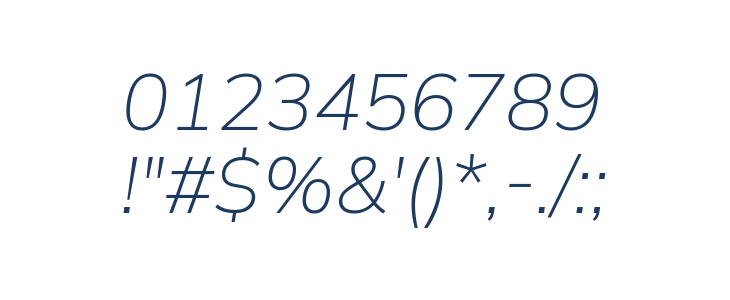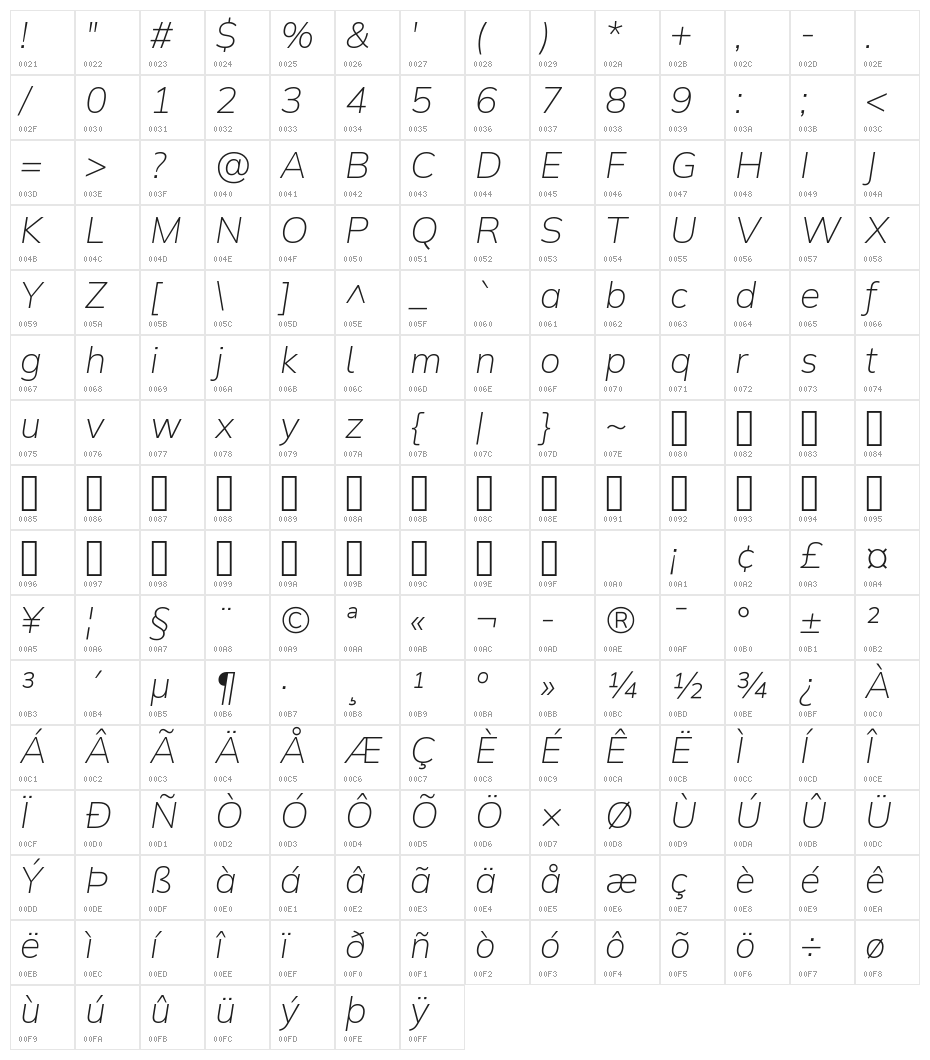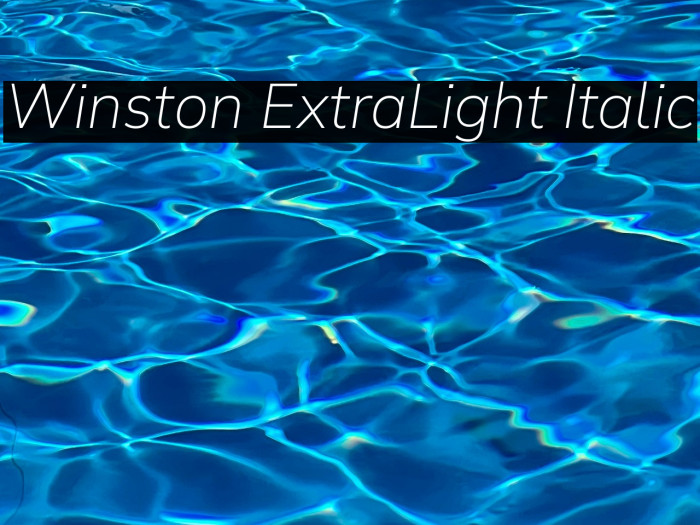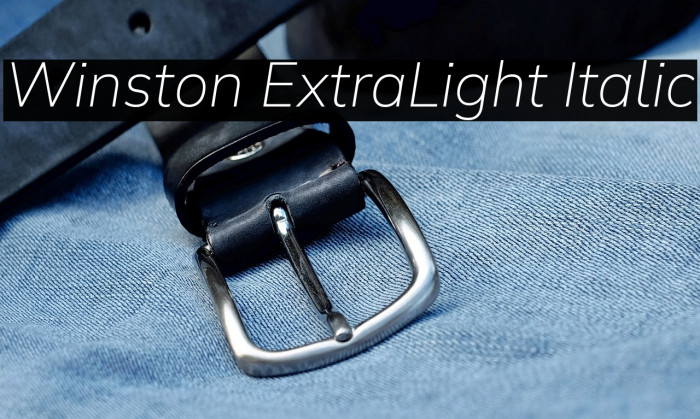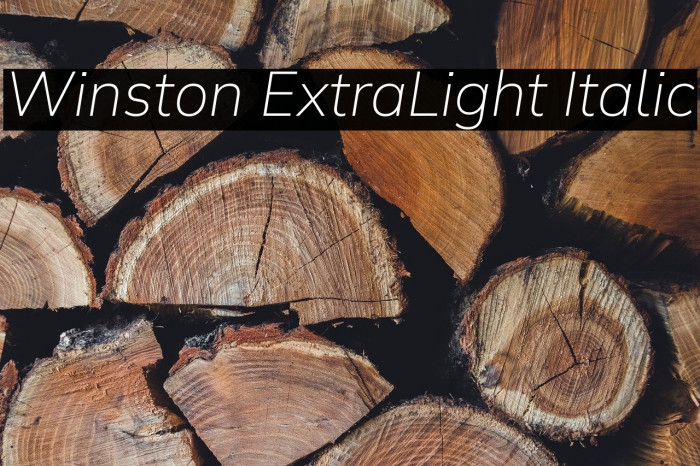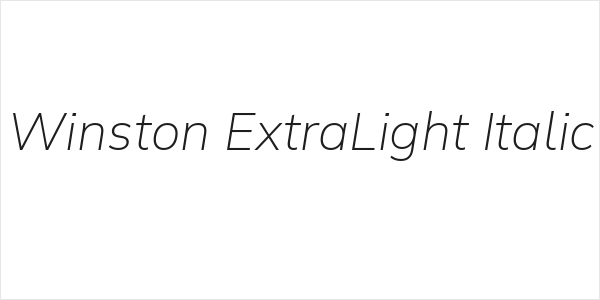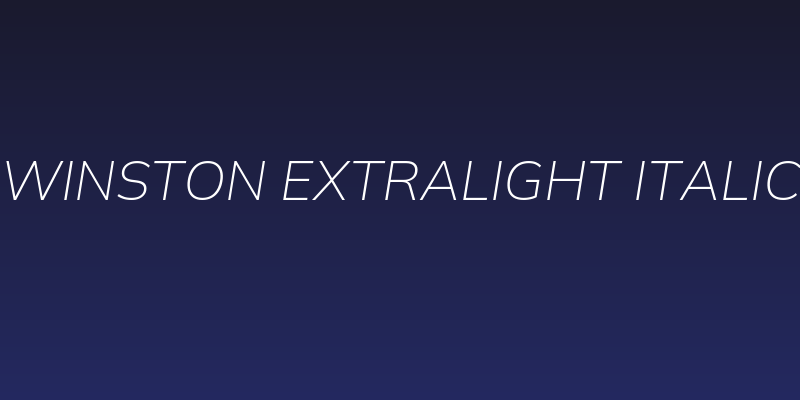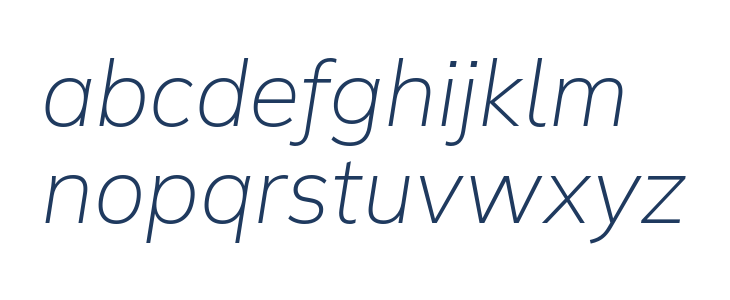
Winston ExtraLight Italic Font
Winston ExtraLight Italic Description
This font features a sleek and modern design with an elegant italic style. The characters are crafted with an extra light weight, offering a delicate and sophisticated appearance. The strokes are thin and consistent, providing a clean and airy feel. The font maintains a harmonious balance between form and function, making it versatile for various design needs. Its italic nature adds a subtle dynamism, enhancing the visual flow of text. The character set includes uppercase and lowercase letters, numerals, and a range of special characters, all designed with precision and clarity.
| Proposed Projects | Ideal for fashion magazines, luxury branding, elegant invitations, and minimalist web design. |